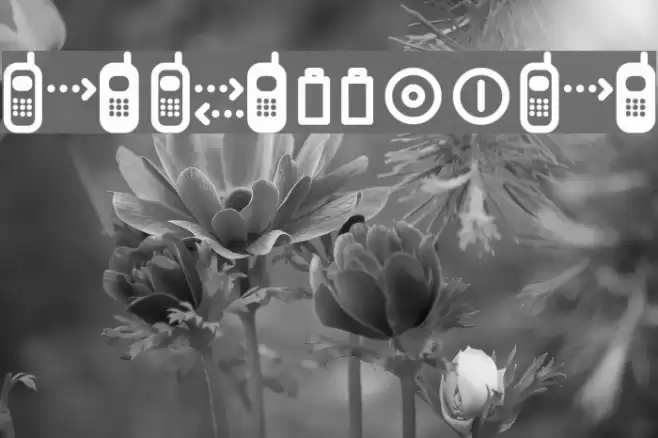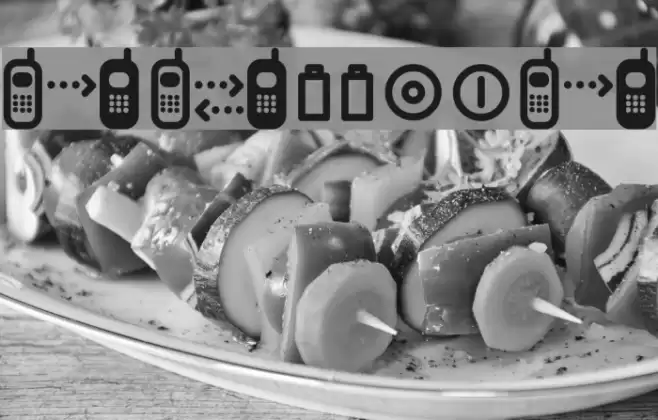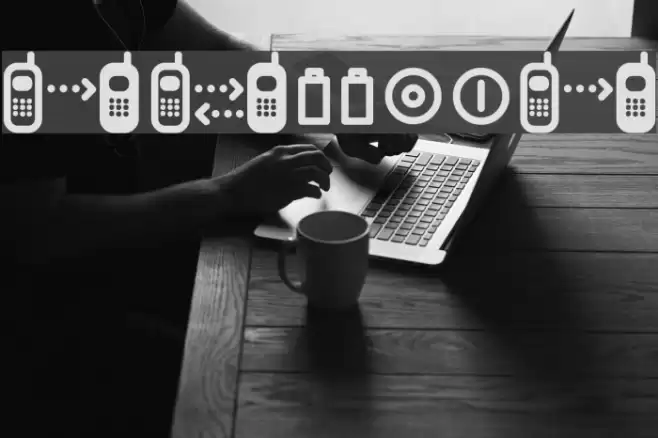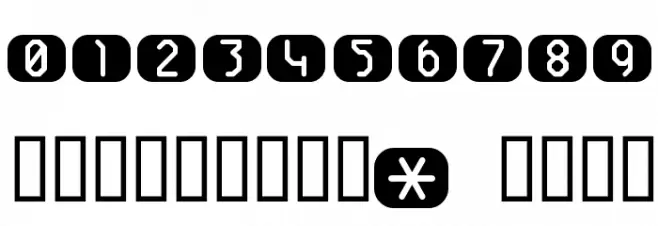
cellpic Font
cellpic Description
This is a decorative font featuring a collection of mobile phone-themed icons and symbols. The design includes various mobile devices, signal indicators, and communication symbols like envelopes and SMS icons. The style is playful and tech-oriented, with bold, solid shapes that are easily recognizable. The characters are evenly spaced and have a consistent weight, making them suitable for digital and print media that require a modern, tech-savvy aesthetic. The icons are designed to convey a sense of connectivity and communication, ideal for projects related to technology, telecommunications, or digital communication.
A decorative font with mobile phone-themed icons and symbols from Dingbats fonts.
- Proposed Projects: Ideal for technology-related branding, app interfaces, digital communication materials, and educational tools about mobile technology.
- Use Case: Logos, App interfaces, Digital media